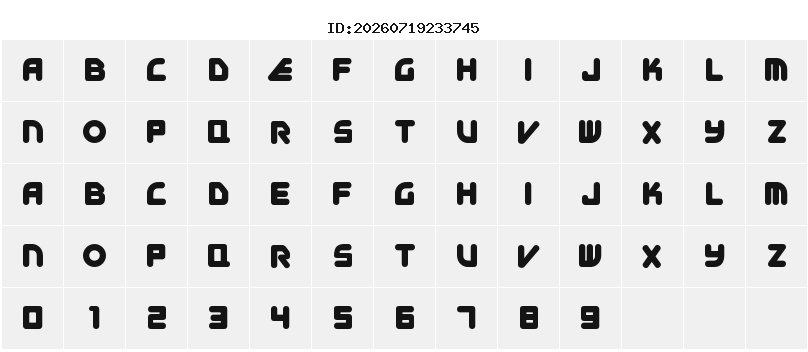
• Font Name: EFour Digital Font
• Full Font Name: Entertainment 4 Digital Font
About EFour Digital Font.ttf
EFour Digital Font.ttf is a modern, elegant sans-serif font designed for ultimate readability and visual harmony. Perfect for branding, headlines, web design, and print materials.